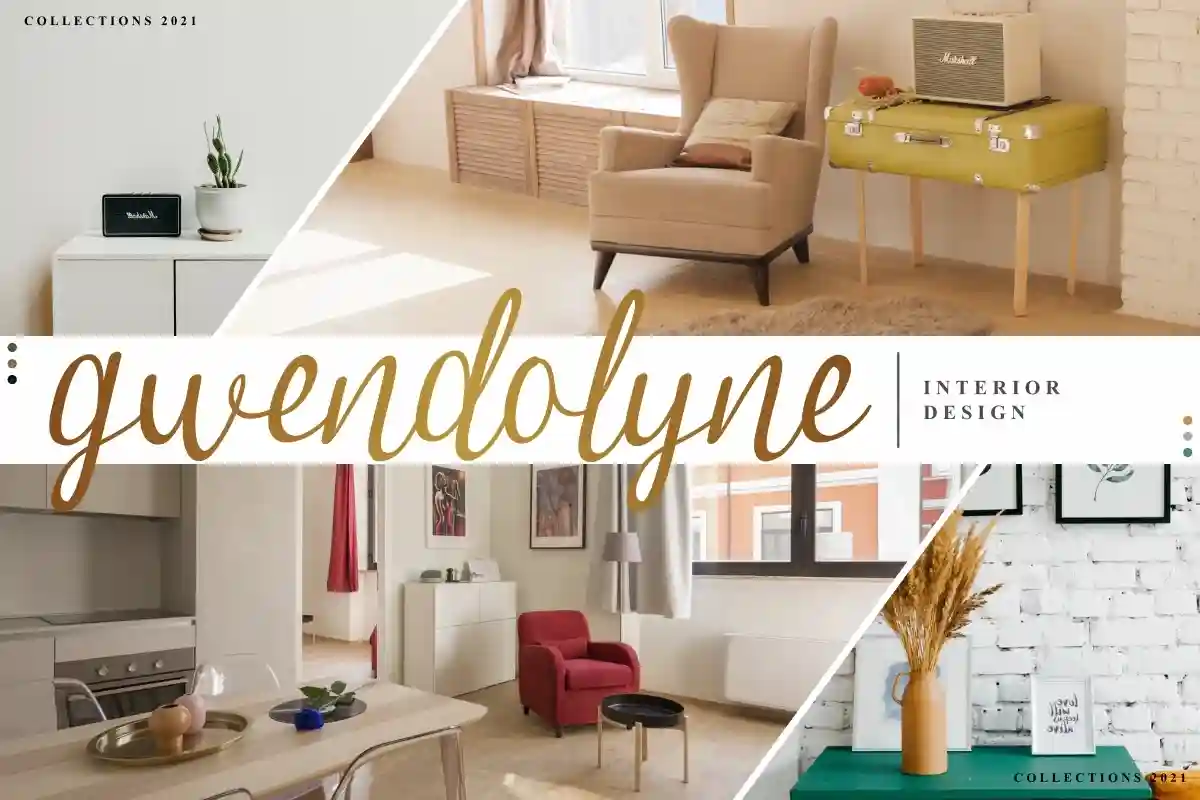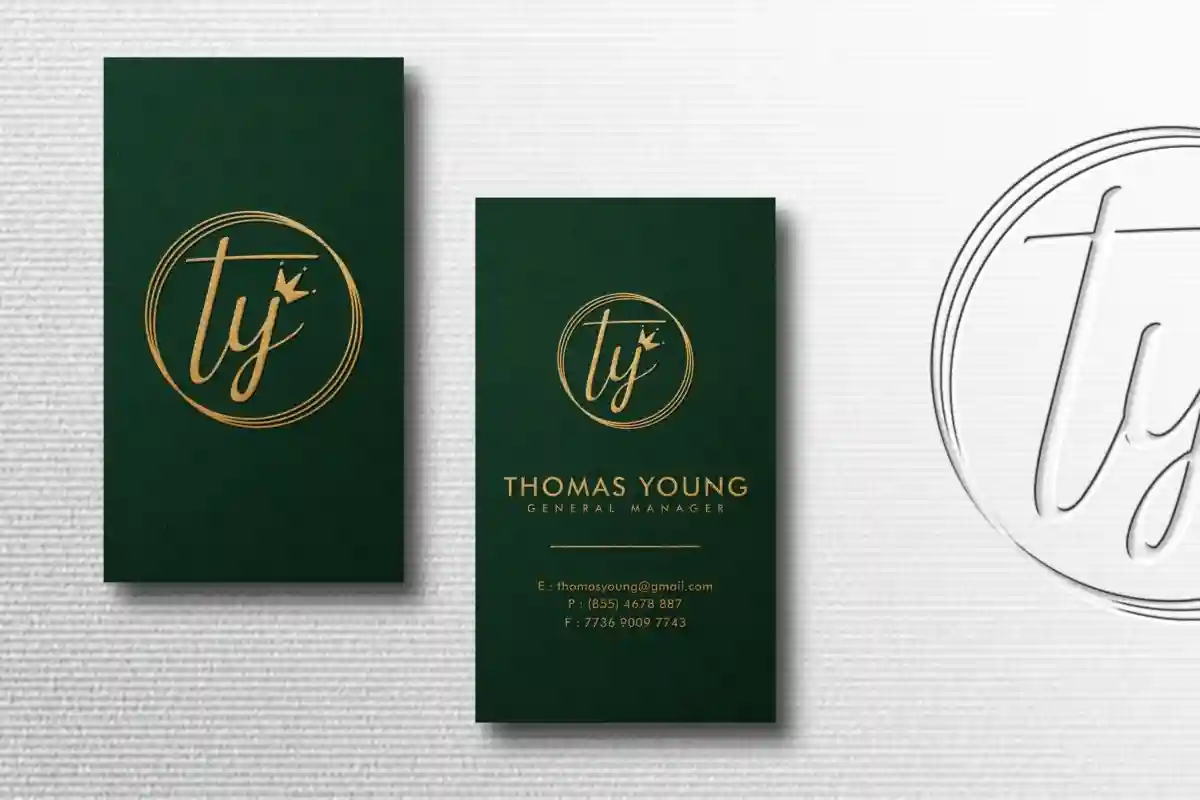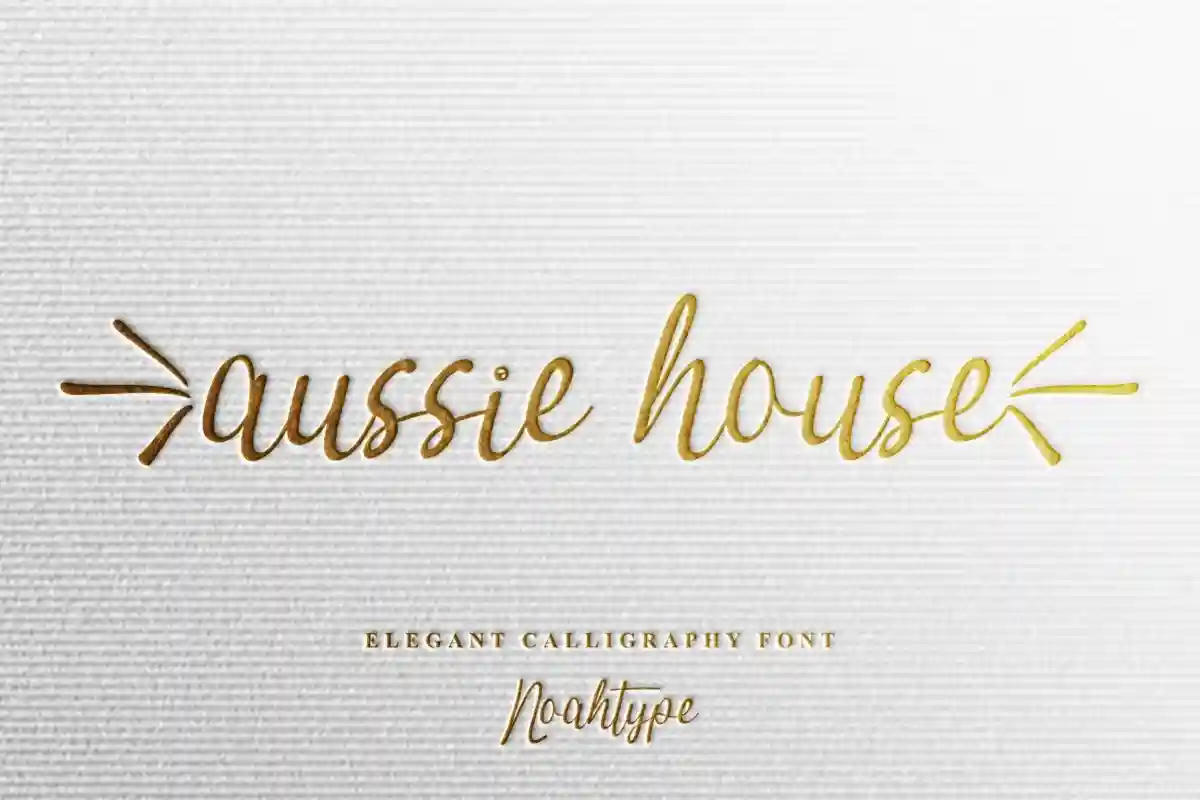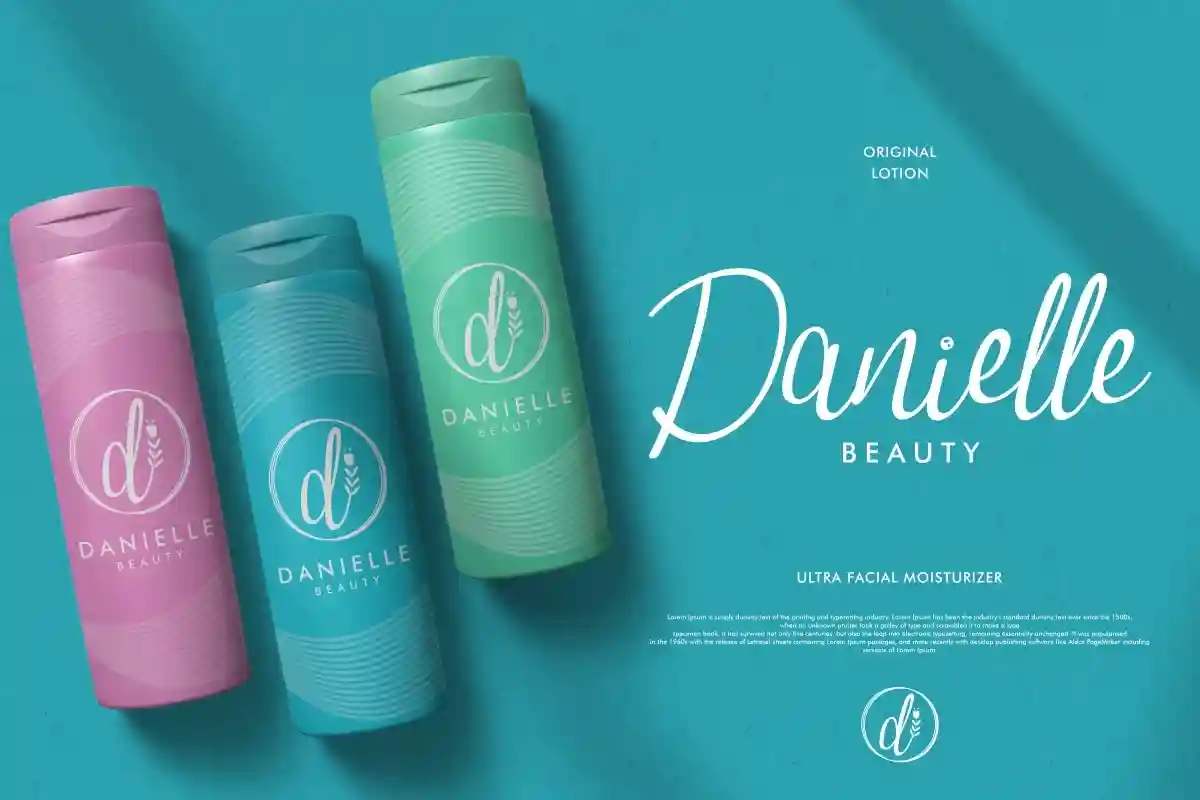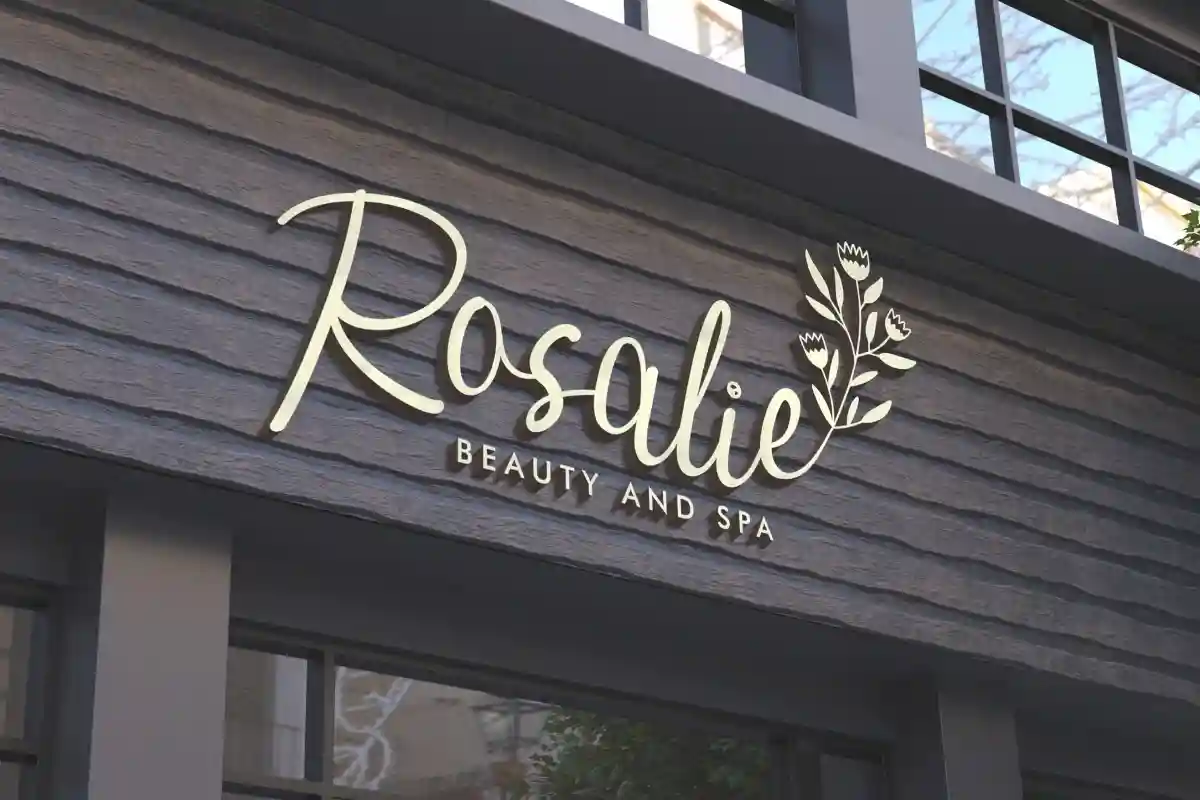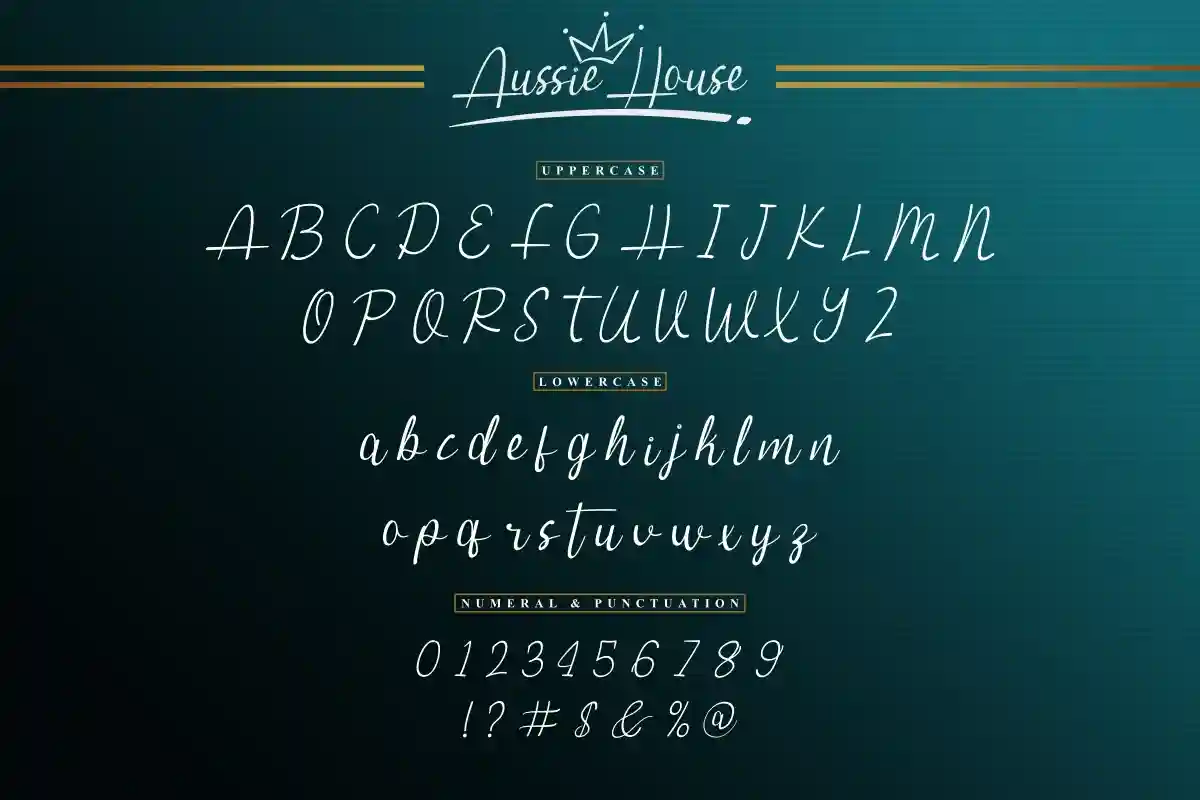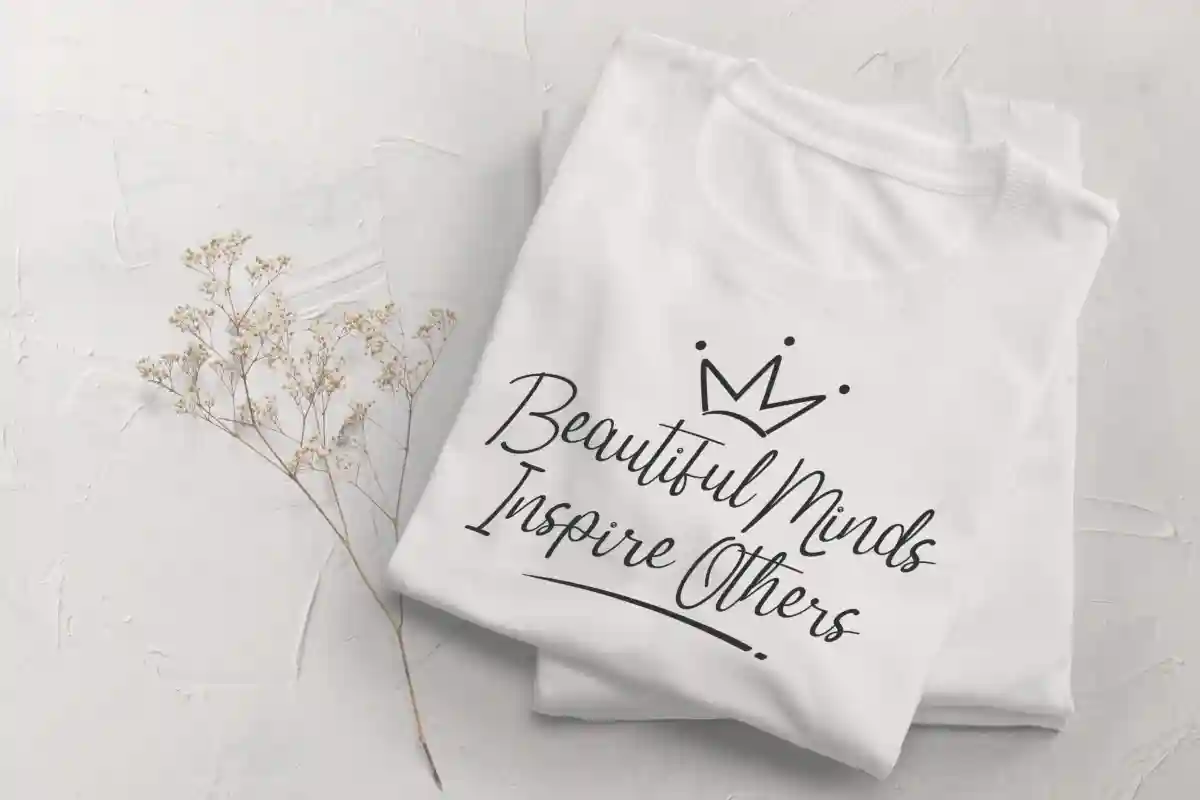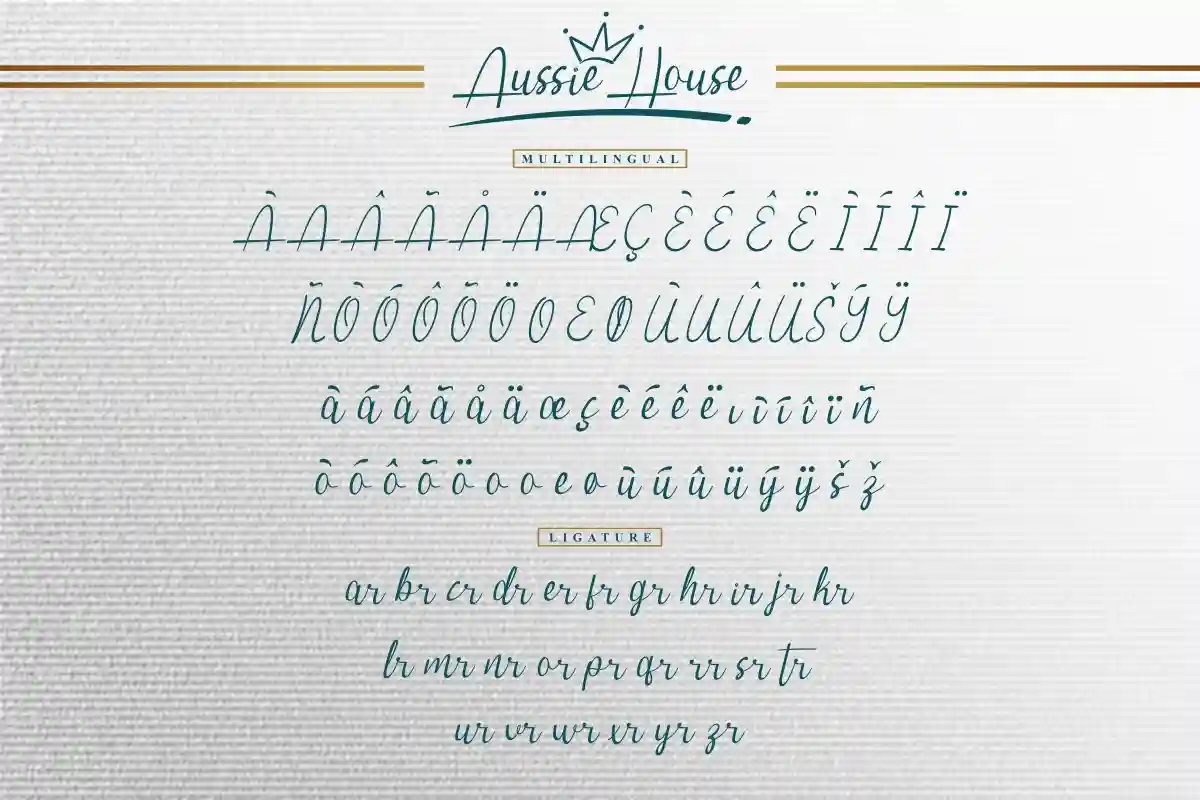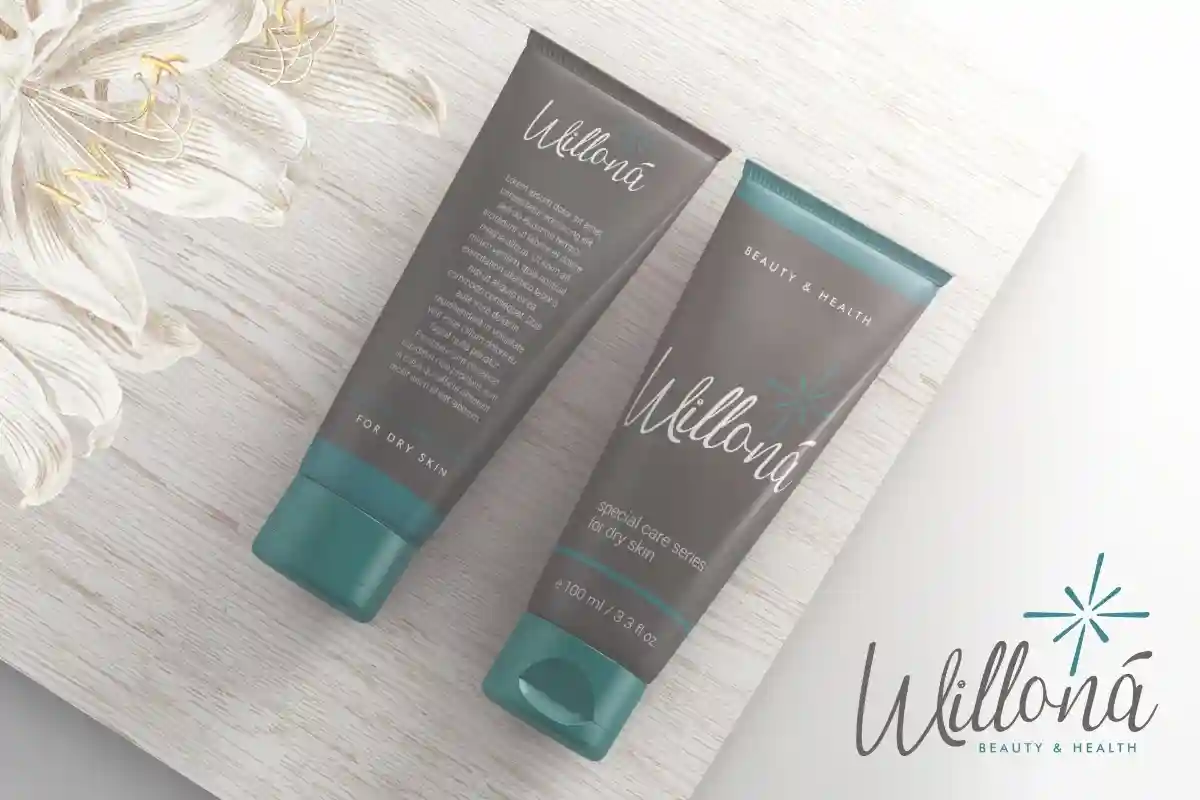
Aussie House is a unique calligraphy font script with sophisticated characters , stylish swash and gorgeous alternates. This is perfect for invitation calligraphy, luxury branding, fashion promotions, song tittle, and many more. This font is crafted carefully in every its single scratch, created to look as close to a natural handwritten script so that it can create the perfect combination on each glyph.
When we make this font, we really want to create a touch that is so free-flowing that it gives a natural impression on its use later. For example, if you want letter ‘s’ that has a flow sketch with letter ‘t’, you can find it in ‘st’ ligature glyph (just type in the text form below for trying). This awesome font is for anyone who are needing of elegance and stylish for their designs.
Aussie House Font includes full set of Uppercase and Lowercase Basic Characters, Numerals and Punctuation. Also it contains ligatures and alternates characters to perfectly make natural calligraphy look that add more beautiful and aesthetic fonts to perfect your extraordinary project. Aussie House will be awesome for restaurant, cafe, wedding, engagement, branding, invitations, florist, hair stylish, makeup artist, event organizer, movie, music, festival, promotions, social media etc